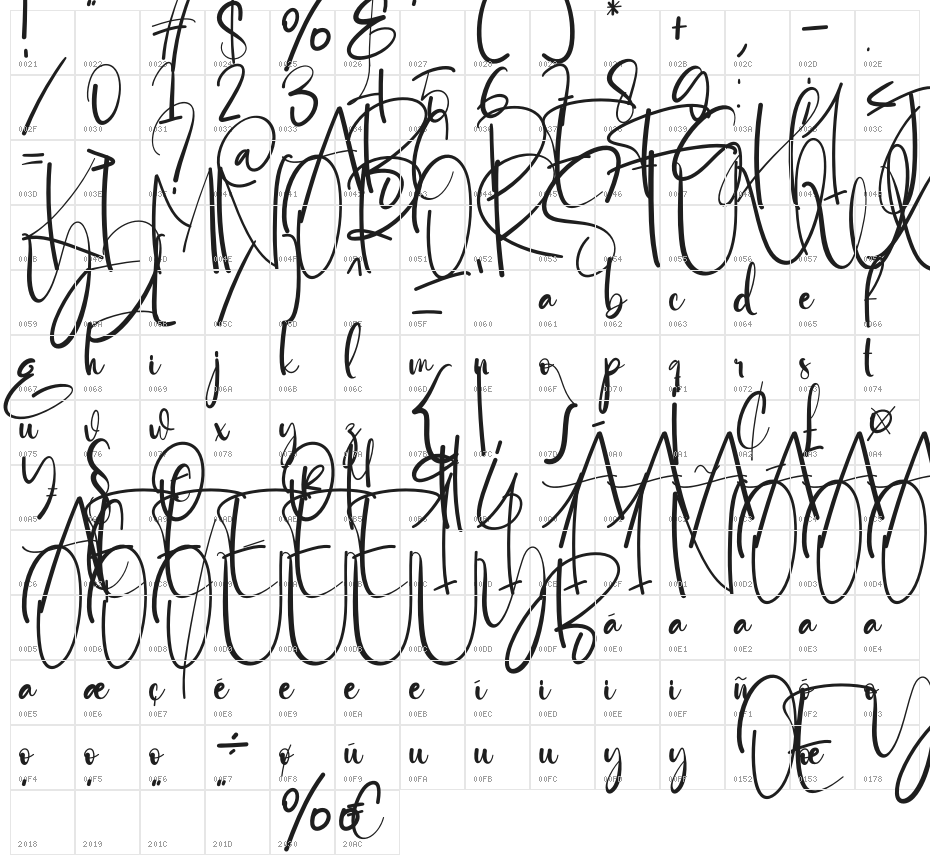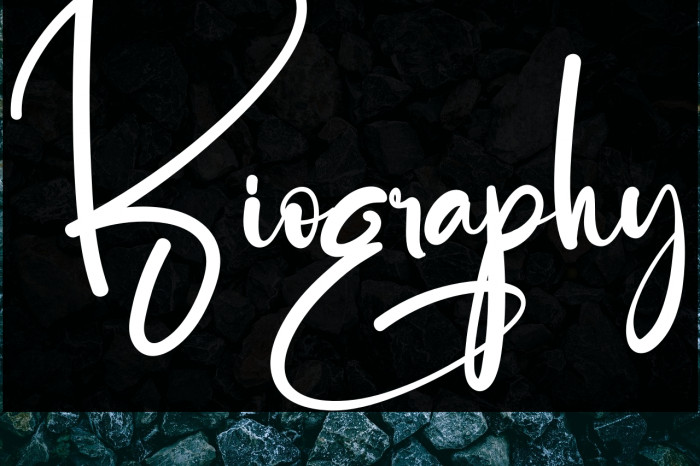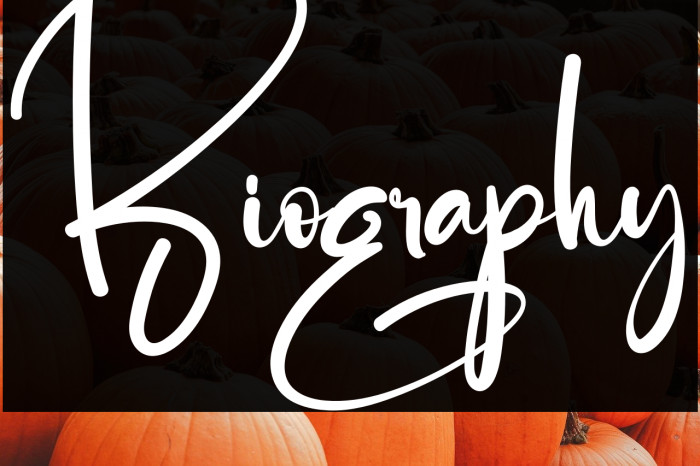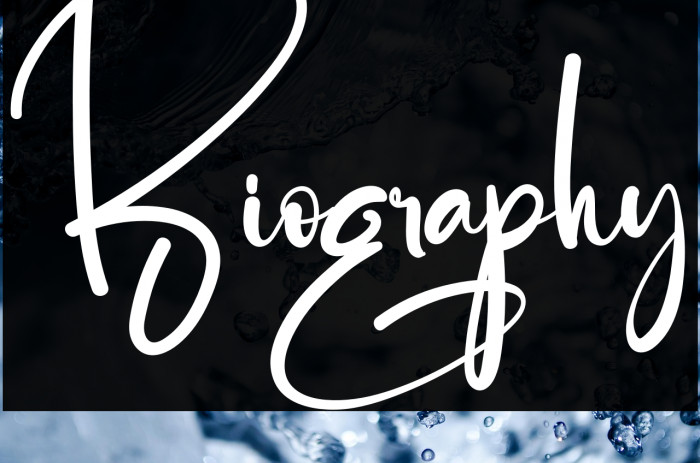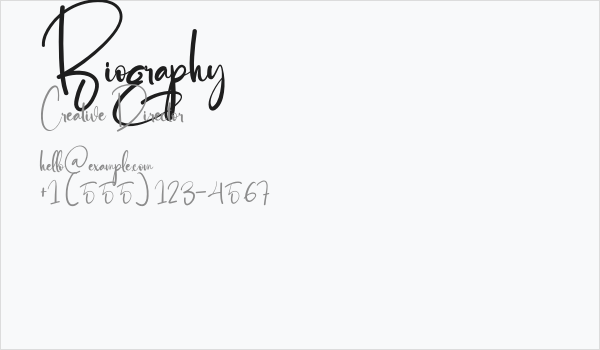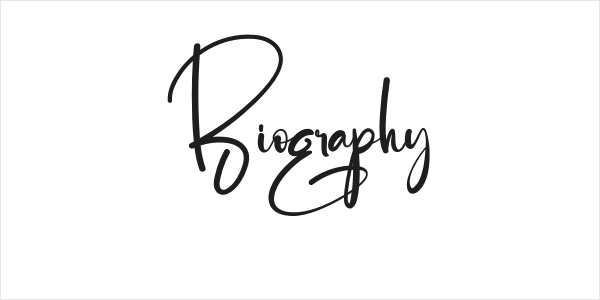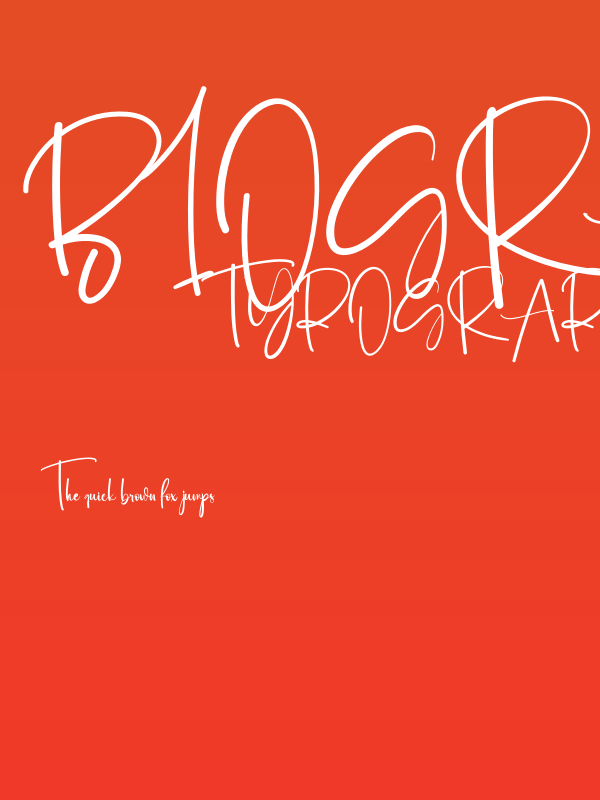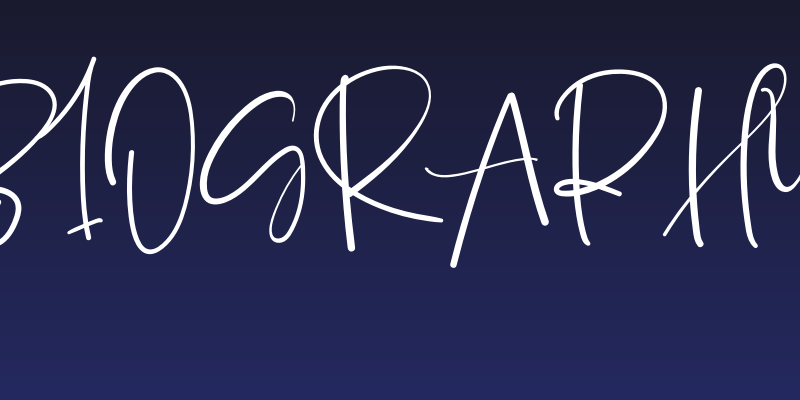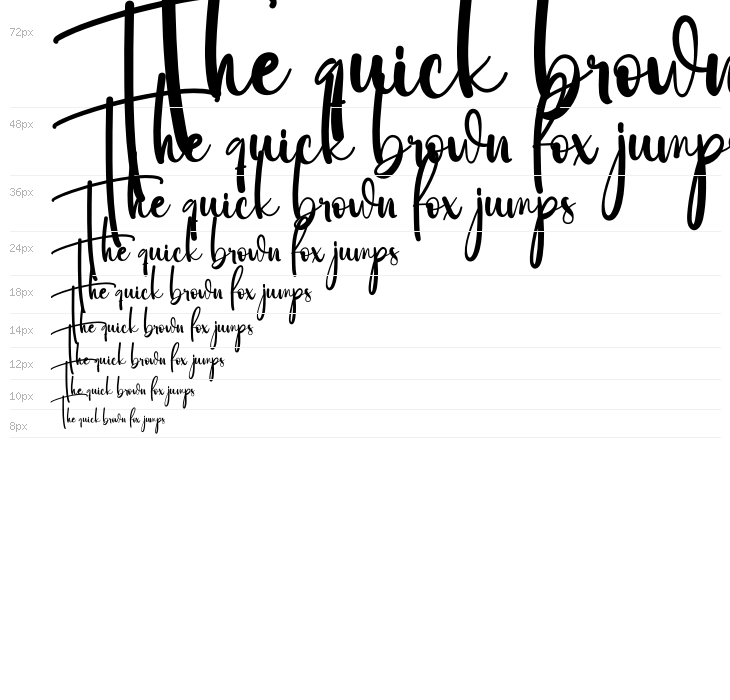
Biography Font
Biography Description
This font features a playful and energetic handwritten style, characterized by its fluid and dynamic strokes. The uppercase letters are tall and slender, with a slight tilt that adds a sense of movement. The lowercase letters maintain a consistent flow, with some letters extending below the baseline, enhancing the casual and informal appearance. The numbers are similarly styled, with a quirky and lively feel. Special characters are integrated seamlessly, maintaining the overall aesthetic. The font's design is well-suited for projects that require a personal and approachable touch.
| Overall Style | Casual |
| Use Case | Logos, Headlines, Social media graphics |
| Proposed Projects | Ideal for greeting cards, personal branding, social media graphics, and creative projects that require a personal touch. |